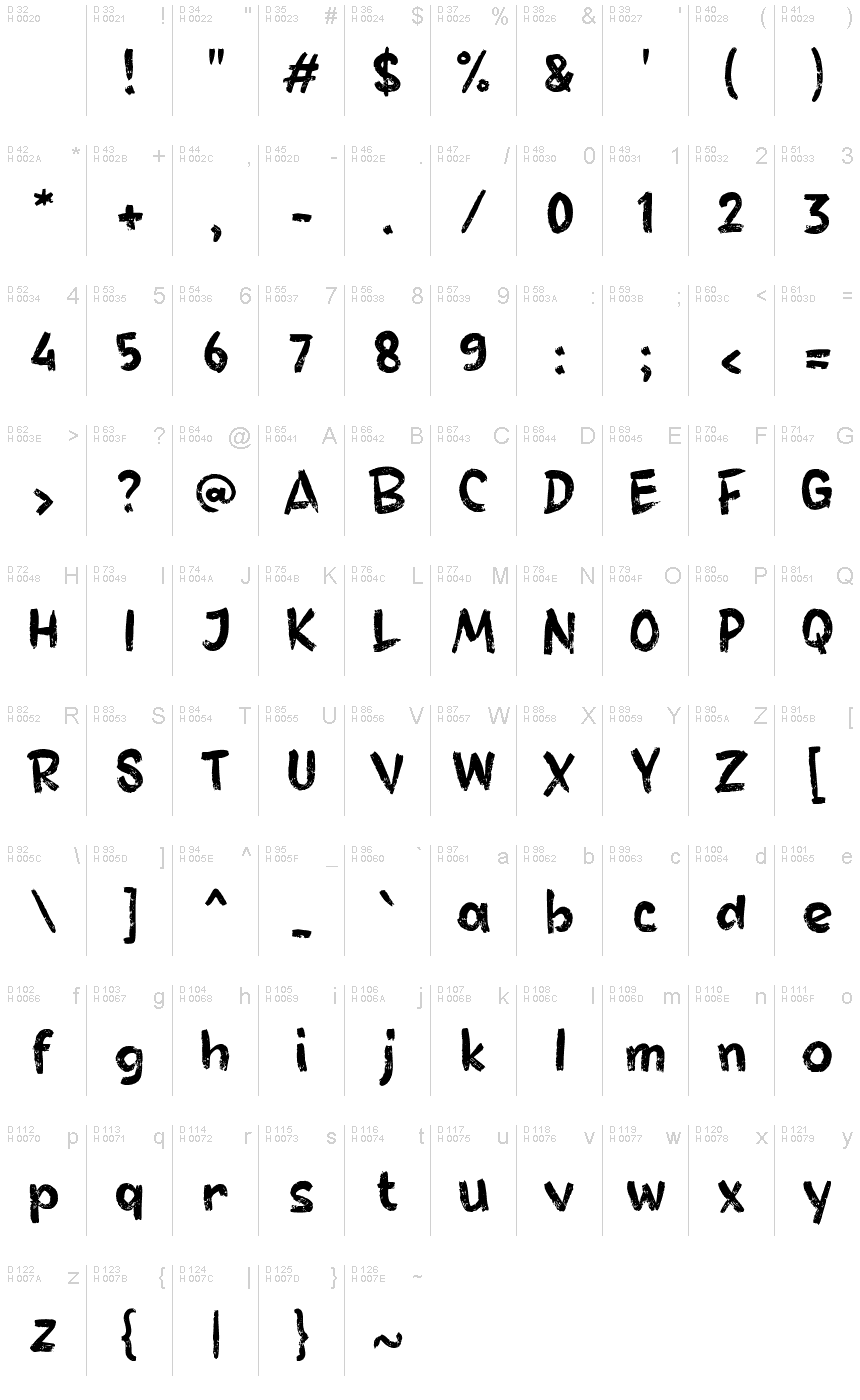
EROSI
EROSI, the bold display font by wep, brings a touch of gritty sophistication to your design projects. With its eroded style, this font adds a rugged edge to your creations, making it perfect for adventurous outdoor brands and urban streetwear labels. Its bold weight commands attention and makes a statement in posters, album covers, and logo designs. Whether you're designing for extreme sports enthusiasts or rebellious musicians, EROSI is the go-to font for those seeking an edgy and captivating visual presence. Let your imagination run wild with EROSI's unique eroded display typeface.